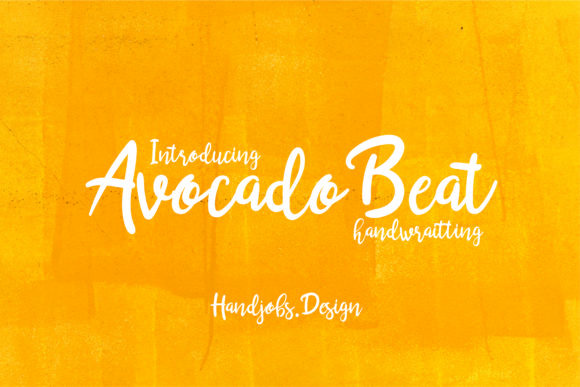
Adding a Touch of Nature to Your Designs
Have you ever found yourself staring at a blank page, trying to come up with the perfect font to complement your design? The blank slate can be intimidating, but sometimes all it takes is a little inspiration to get the creative juices flowing. For me, it’s often a walk in the park or a trip to the farmer’s market that sparks an idea. And that’s exactly where the Avocado Beat Font comes in – a natural typeface that adds a touch of the outdoors to your layouts.
Perfect for adding a natural feel to your branding, logos, quotes, and more, the Avocado Beat Font is a valuable asset for designers looking to bring a sense of the wild into their work. Its unique character and effortless style make it a great choice for those seeking to add a touch of whimsy to their designs.
Key Features of Avocado Beat Font
- Unique Characteristics: The font features a unique blend of modern and organic elements, with subtle texture and subtle irregularities that give it a hand-crafted feel.
Review of Avocado Beat Font
At first glance, the Avocado Beat Font appears to be a fun and quirky addition to any design project. ✨ Its irregular lines and playful feel make it perfect for music-related designs, such as album covers or posters.
The font is highly customizable, with various options for color, size, and spacing. This flexibility makes it easy to adapt to different design needs. ✨ The font’s unique texture and organic feel also add a touch of personality to any design.
However, there are some limitations to consider. ⚠️ The font’s irregular lines can sometimes make it difficult to read, especially in smaller sizes or when used in large blocks of text. Additionally, the font’s organic feel can sometimes come across as unprofessional or amateurish.
Overall, the Avocado Beat Font is a solid choice for designers looking to add a playful touch to their work. While it may not be suitable for every project, it’s a great option for music-related designs or projects that require a bit of whimsy.
- Playful, irregular lines
- Unique texture and organic feel
- Perfect for music-related designs
The Avocado Beat Font is perfect for:
- Creative projects, such as branding and advertising.
- Food and lifestyle blogs, showcasing recipes and cooking techniques.
- Designing invitations, menus, and other printed materials.
Alternatives to Avocado Beat Font
Great Vibes Font is a modern script font that conveys a sense of relaxation and calmness. It’s perfect for designs that require a friendly and approachable tone, such as wellness, travel, or lifestyle brands.
Compared to Avocado Beat Font, Great Vibes Font has a more laid-back and casual feel, while Avocado Beat Font is more energetic and playful.